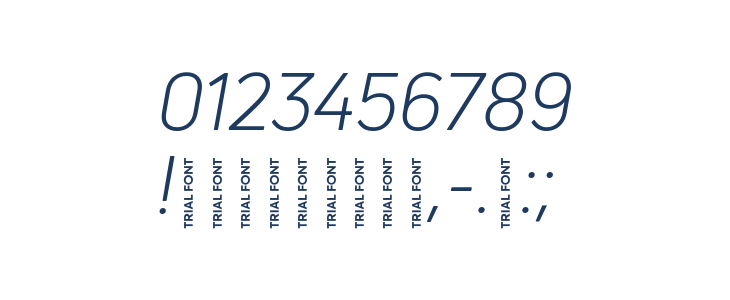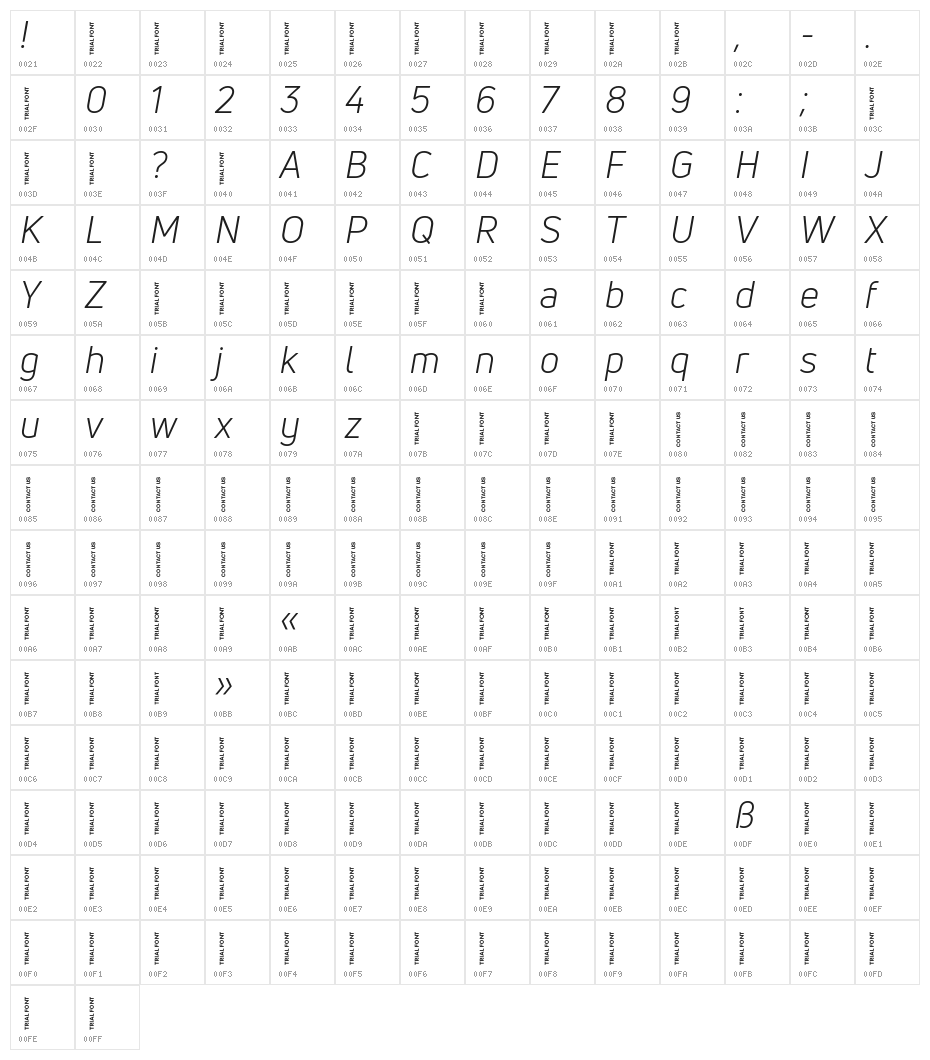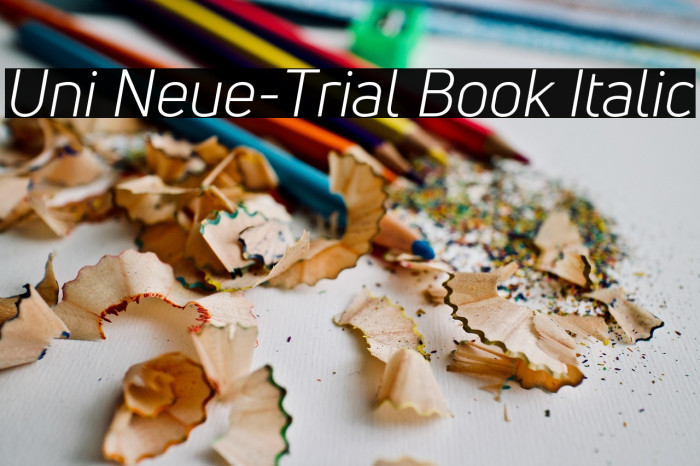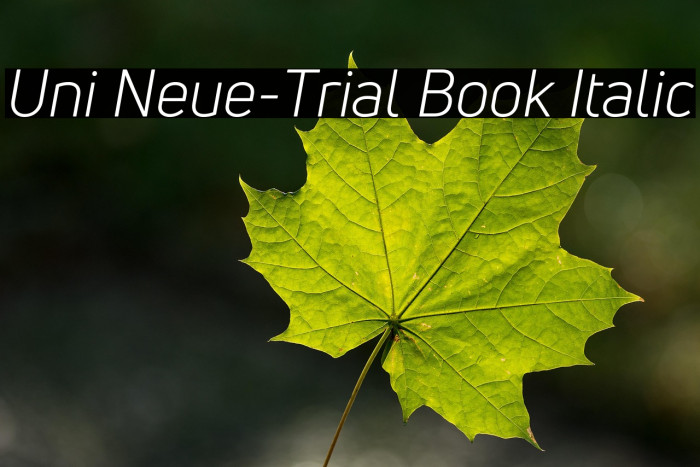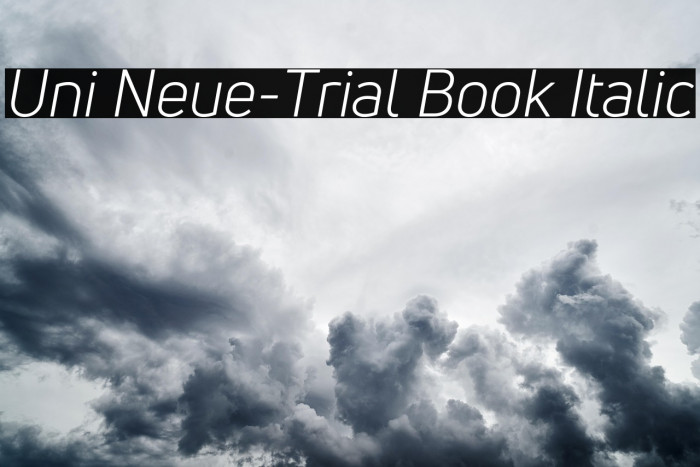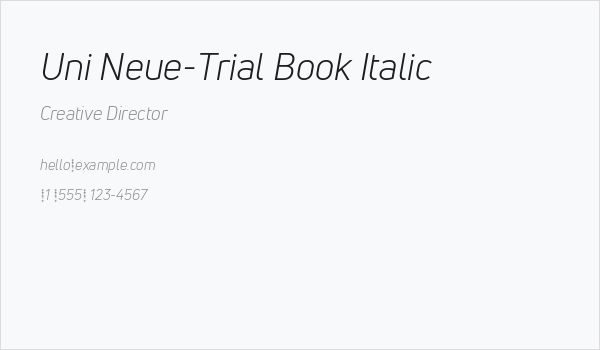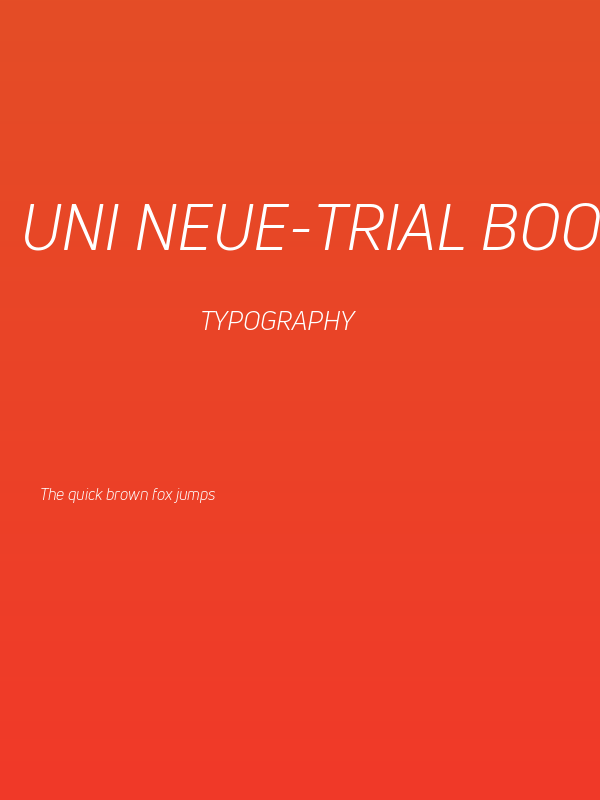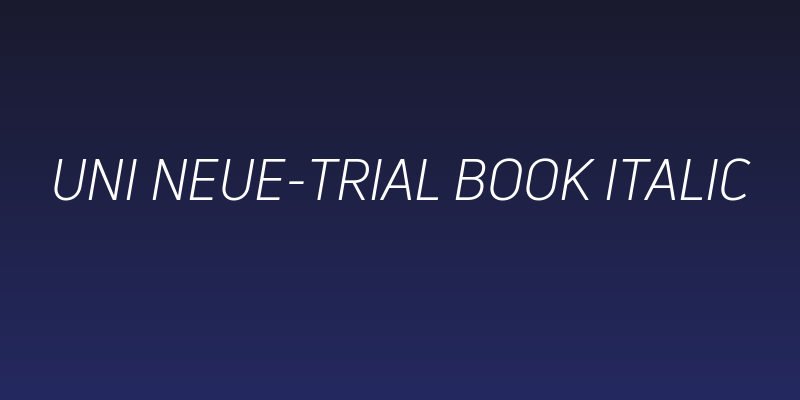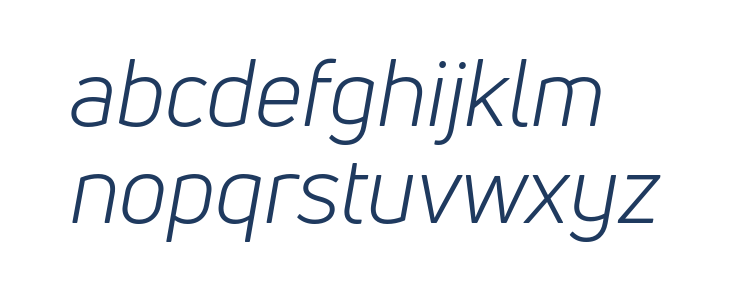
Uni Neue-Trial Book Italic Font
Uni Neue-Trial Book Italic Description
This font features a sleek and modern design with a clean, sans-serif style. The italicized form adds a dynamic and forward-leaning appearance, making it suitable for contemporary projects. The characters are well-proportioned, with a slight slant that enhances readability while maintaining a stylish look. The numerals are clear and distinct, complementing the overall uniformity of the typeface. Special characters are included, providing versatility for various design needs. The font's smooth curves and consistent stroke width contribute to its elegant and professional aesthetic.